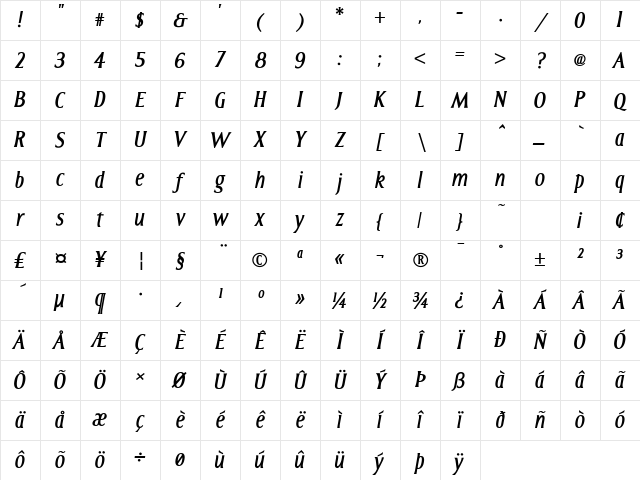
Pilgrim Italic
Foundry: Marc Tassell / Rebels
Design Context for Pilgrim
Pilgrim is a composed and adaptable typeface that performs quietly and consistently across a wide range of design contexts. The slanted form adds forward momentum and visual energy.
Pro Tip: Use Pilgrim for emphasis, pull quotes, and subheadings where its slanted energy can add rhythm to the layout.
Who designed the Pilgrim Italic font?